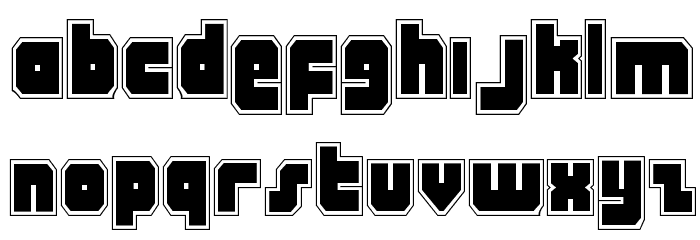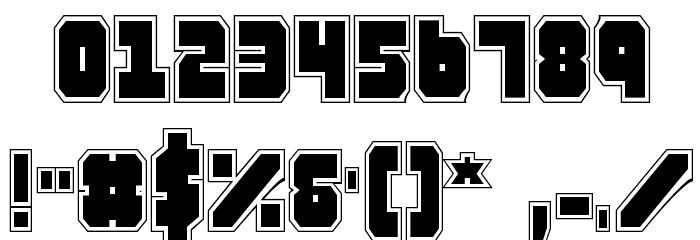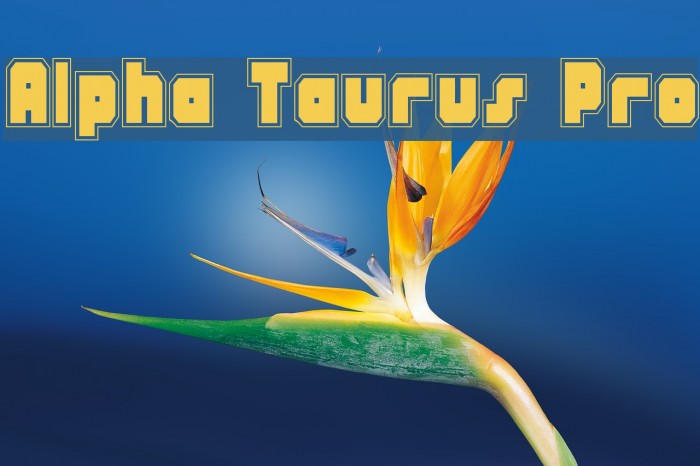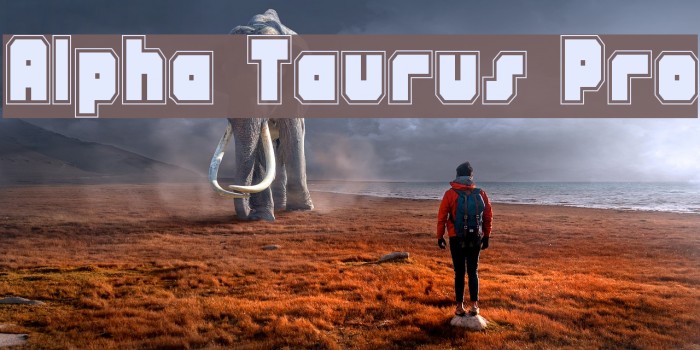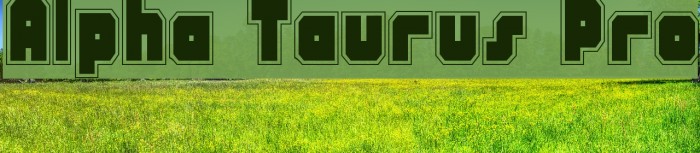
Alpha Taurus Pro Font
This font features a bold, geometric design with a strong presence. The characters are blocky and angular, with a distinct outline that adds depth and emphasis. The uppercase and lowercase letters maintain a consistent style, creating a cohesive look. The numbers and special characters follow the same bold and outlined aesthetic, ensuring uniformity across all elements. This font is ideal for making a statement, with its eye-catching and robust appearance.
A bold, geometric font with outlined characters for a striking visual impact.
- Proposed Projects: Ideal for posters, headlines, logos, and branding materials that require a strong, impactful font.